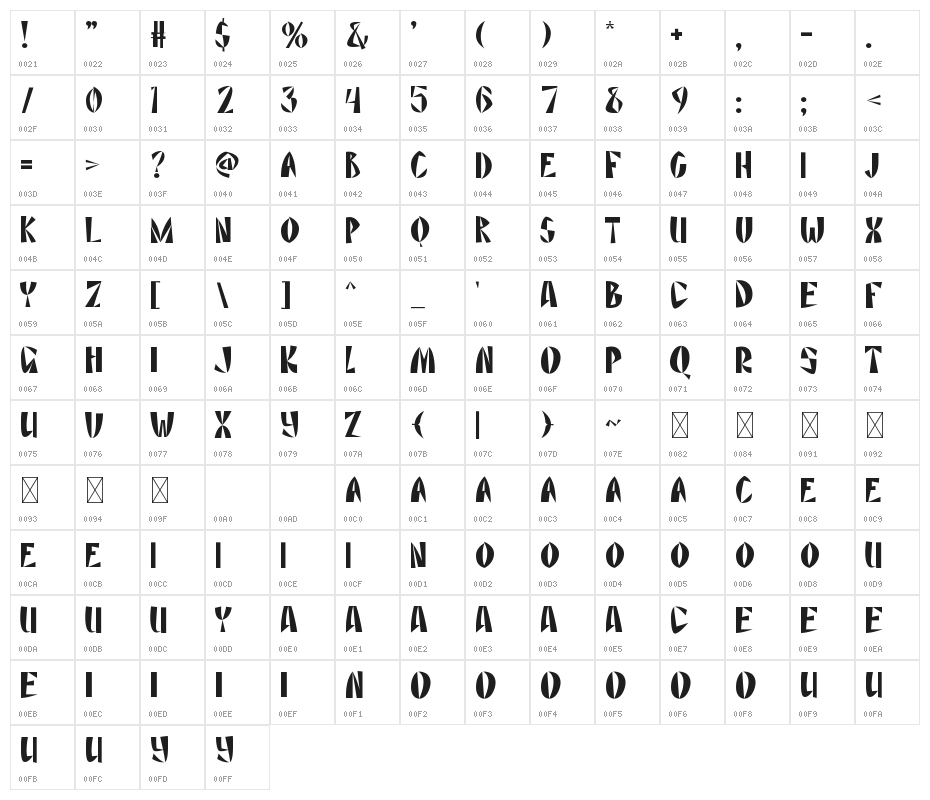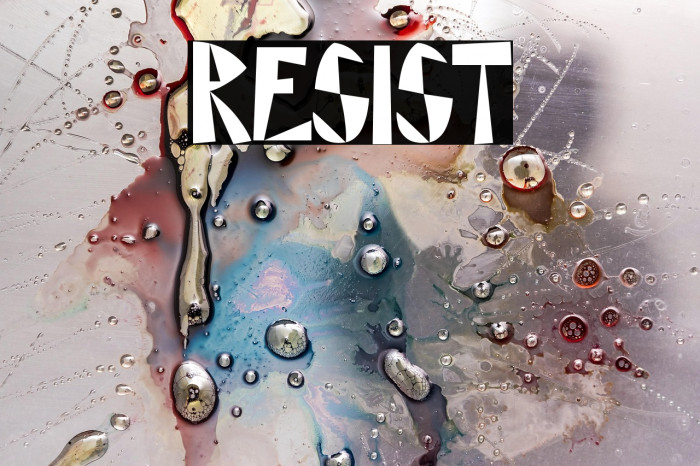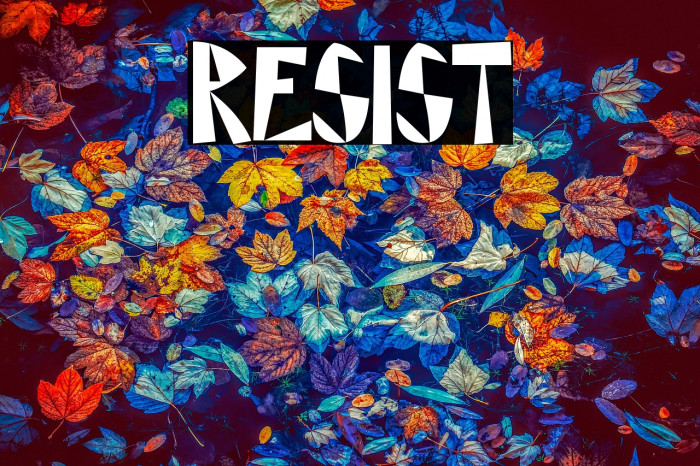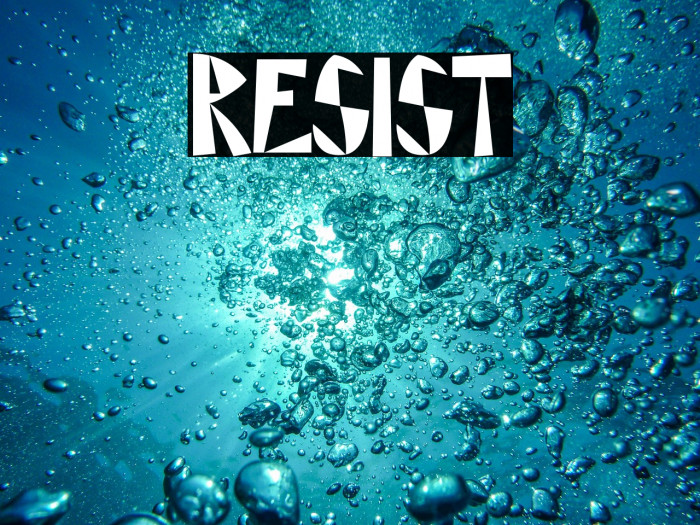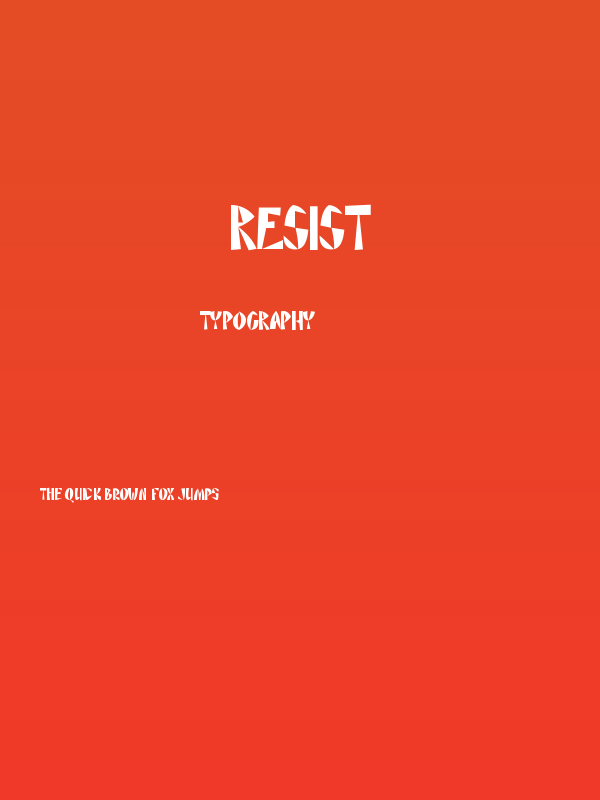
RESIST Font
RESIST Description
This font features a bold and dynamic design with sharp, angular edges and a distinct geometric style. The characters are crafted with high contrast between thick and thin strokes, creating a striking visual impact. The uppercase and lowercase letters maintain a consistent aesthetic, with unique cuts and angles that give the font a modern and edgy appearance. The numbers and special characters follow the same design principles, ensuring uniformity across all glyphs. This font is ideal for projects that require a strong and attention-grabbing typeface.
| Proposed Projects | Ideal for posters, branding, album covers, and any design requiring a bold statement. |